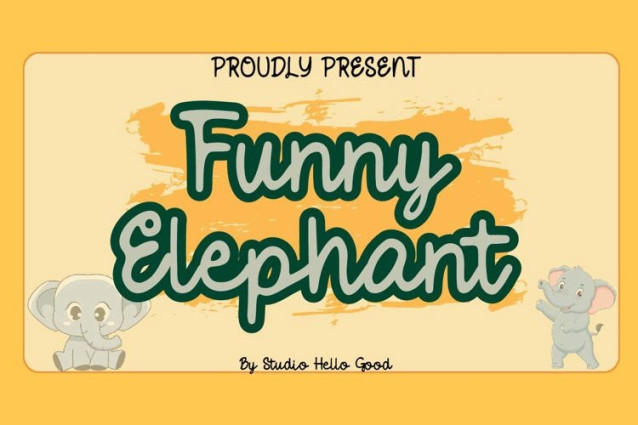
Funny Elephant Font
Funny Elephant Font is a simple and friendly handwritten font. Its natural and unique style makes it incredibly fitting to a large pool of designs. The only limit is your imagination!